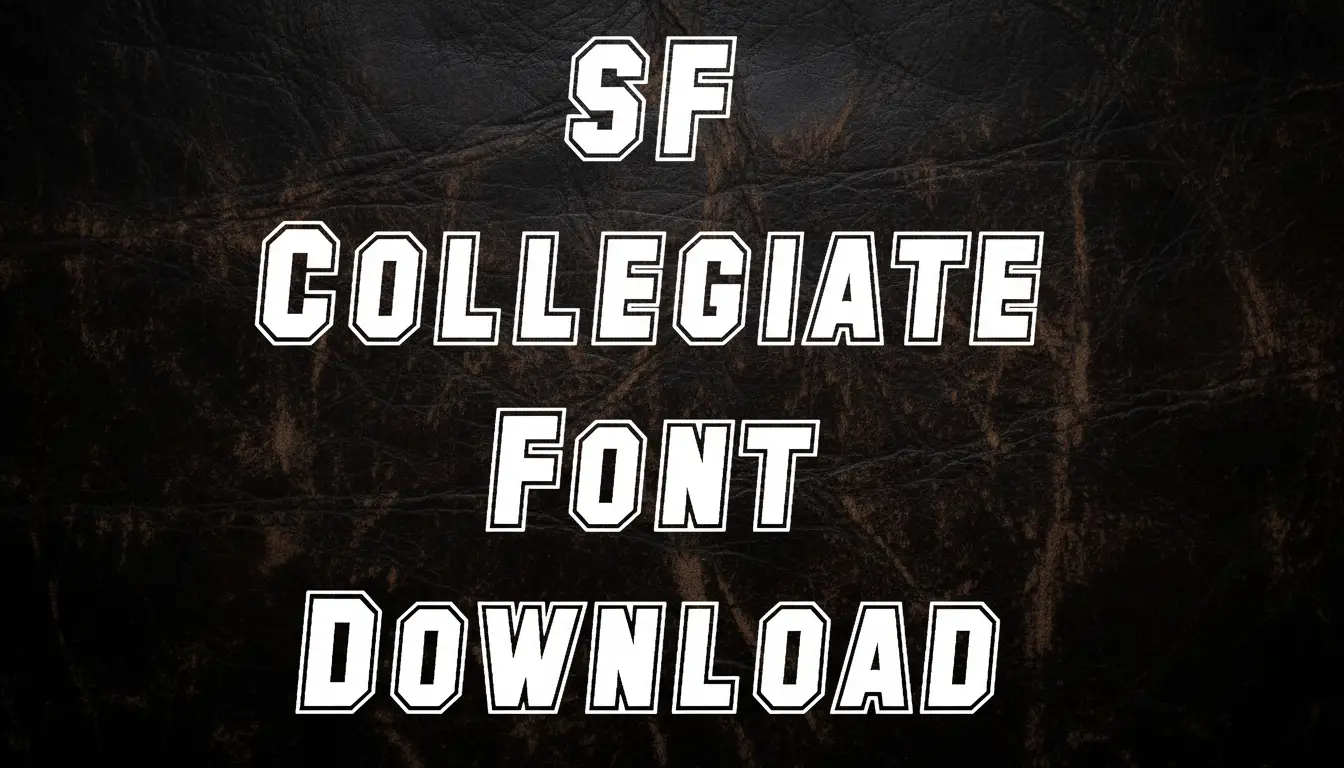
SF Collegiate Font
SF Collegiate Font Preview
SF Collegiate
SF Collegiate Font Details
What You Can Type With SF Collegiate
You get every letter from A to Z in both cases and all the numbers from 0 to 9, which means SF Collegiate can handle full sentences, dates and prices. Common punctuation such as &, !, ? and # is included as well. It doesn't include accented letters such as é or ñ, which makes it an English-only font.
Where SF Collegiate Works Best
Designers usually reach for fonts like SF Collegiate when they're making posters, logos and eye-catching headlines. Use it for one standout word or headline and let simpler fonts handle the rest. Because the family has more than one style, you can mix them in a single design for headings, subheadings and highlights.
Does SF Collegiate support accented letters?
No. SF Collegiate has no accented letters such as é, ñ or ü, so it's best for English text.